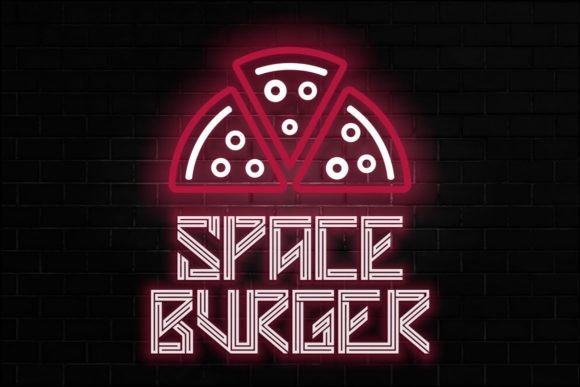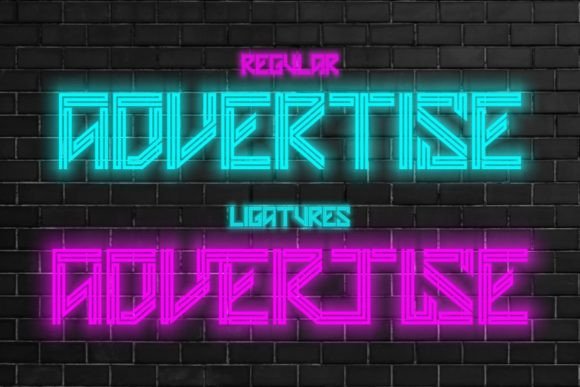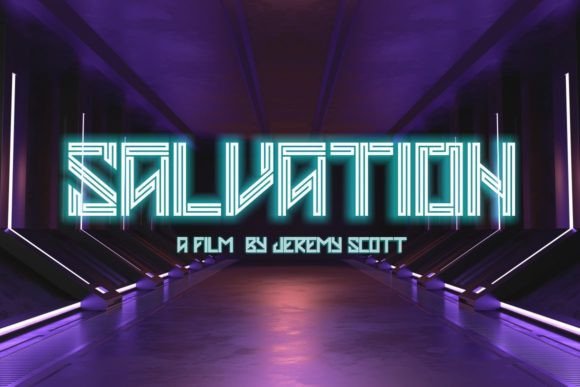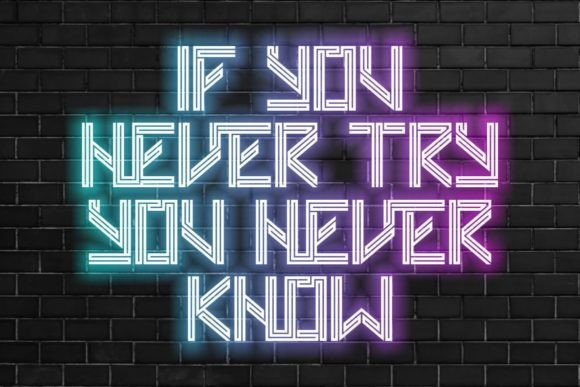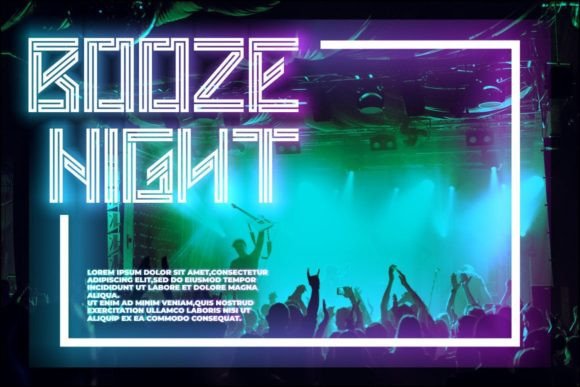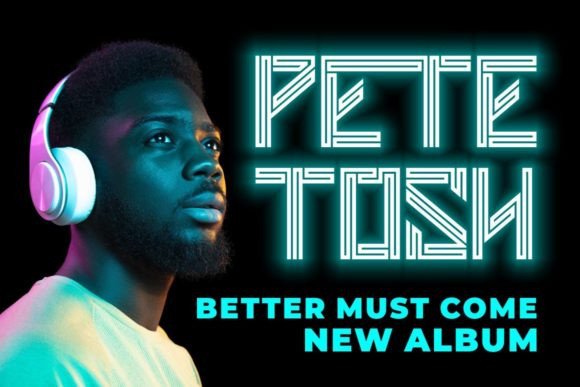
Introduction to Neonbox Font Font
Fonts play a crucial role in design, and the Neonbox Font font is a typeface that brings both character and versatility to any project. Whether you’re working on a branding project, a website, or a print design, the Neonbox Font font offers a unique style that can elevate your work.
Neonbox is a cool, futuristic display font.
Contemporary and fresh, this font will look great on all your modern projects that require bold and daring typography This font is PUA encoded which means you can access all the glyphs and ligatures with ease.
Key Features of Neonbox Font Font
Why Choose Neonbox Font Font?
The Neonbox Font font is more than just a typeface – it’s a design tool that helps you communicate your message with style and clarity. Its unique character set and versatile design make it suitable for a wide range of applications, from elegant invitations to bold headlines.
With its carefully crafted letterforms and balanced proportions, the Neonbox Font font ensures readability and visual appeal across all mediums.
What makes Neonbox Font font special?
The Neonbox Font font stands out with its unique design, exceptional readability, and versatility across various design applications.